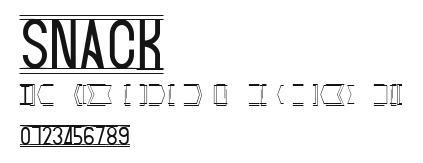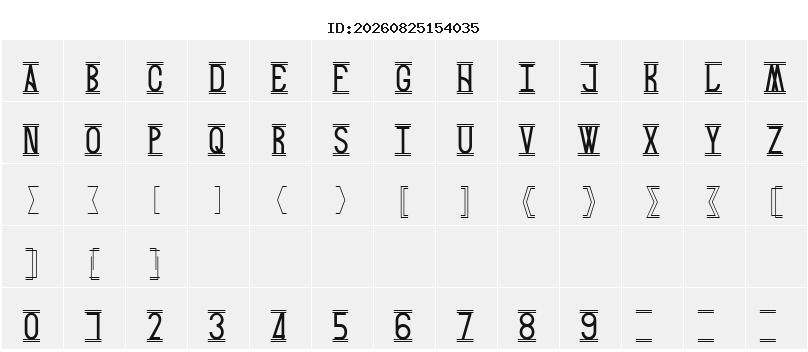
SNACK Preview
• Font Name: SNACK
• Font ID: 1.000;PYRS;SNACK
• Full Font Name: SNACK
• PostScript Name: SNACK
• Character Count: 53
• Designer: QKila
• Manufacturer: QKila
About SNACK.ttf
SNACK.ttf is a modern, elegant sans-serif font designed for ultimate readability and visual harmony. Perfect for branding, headlines, web design, and print materials.